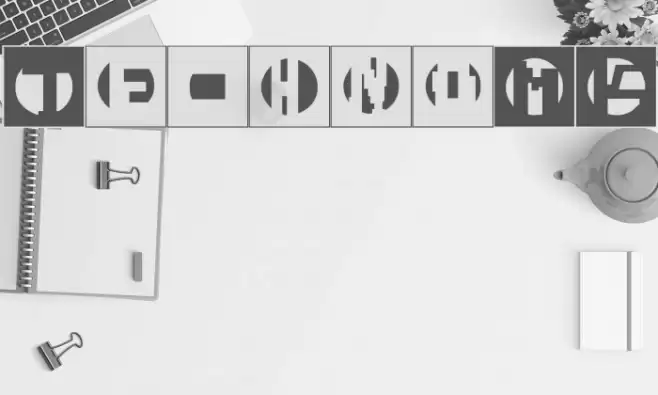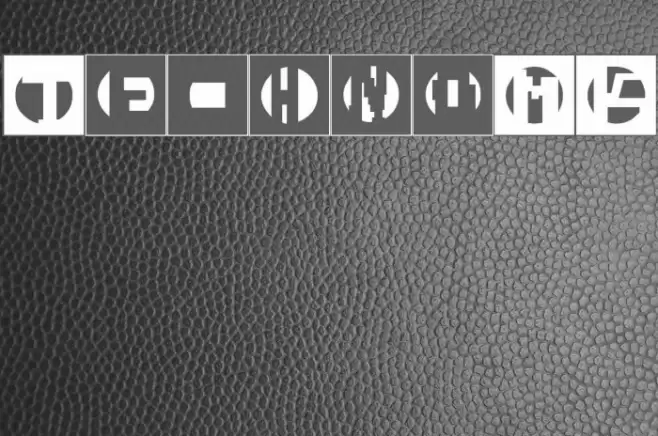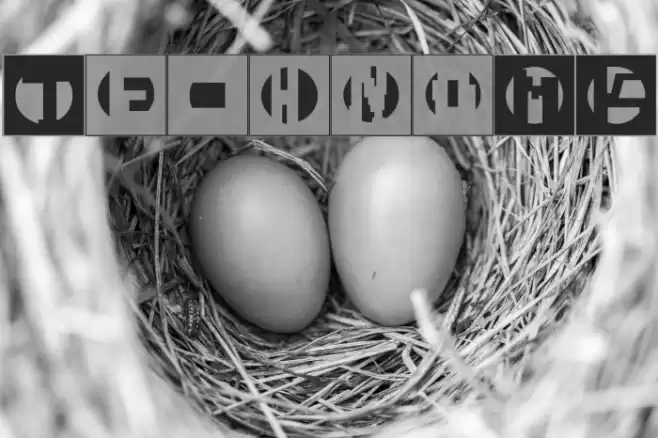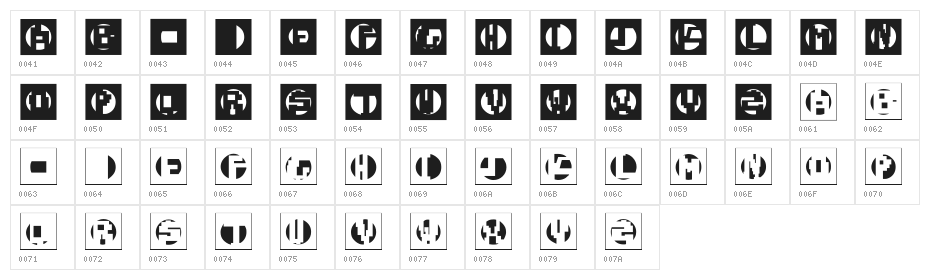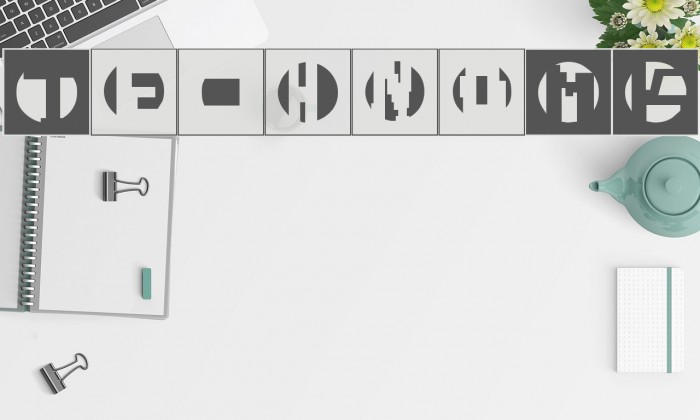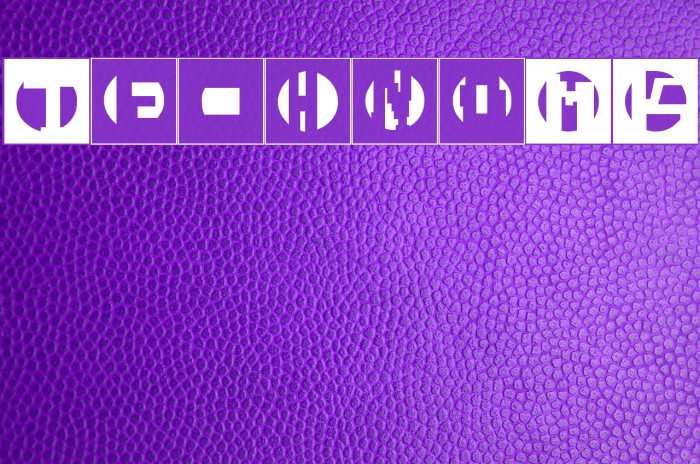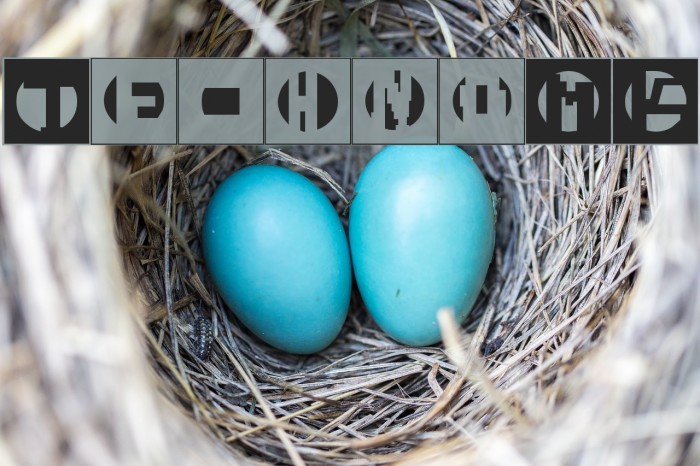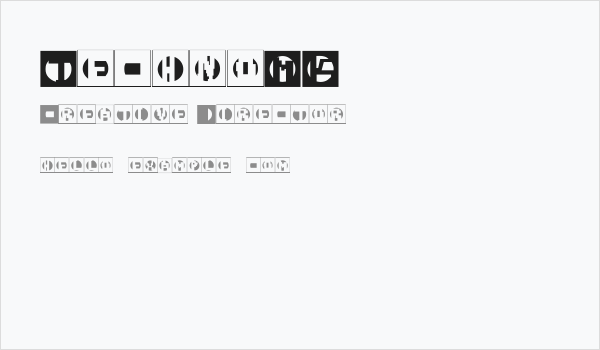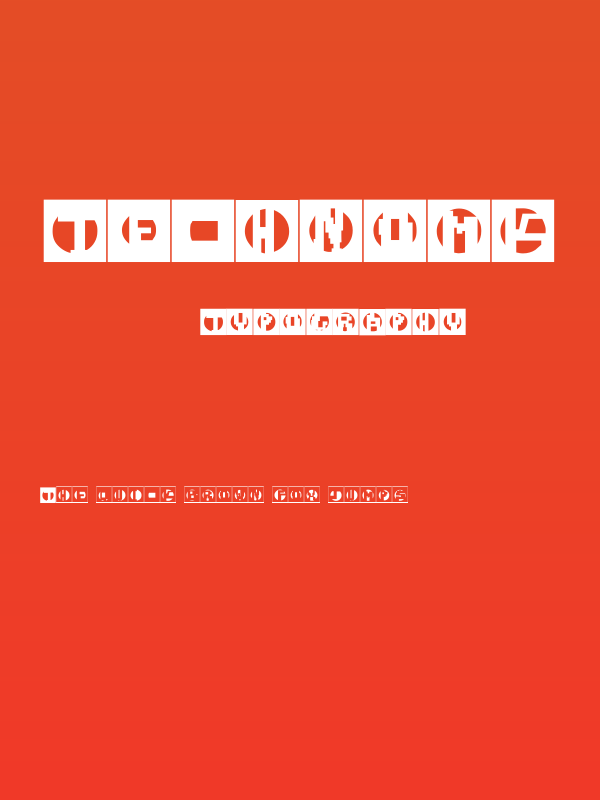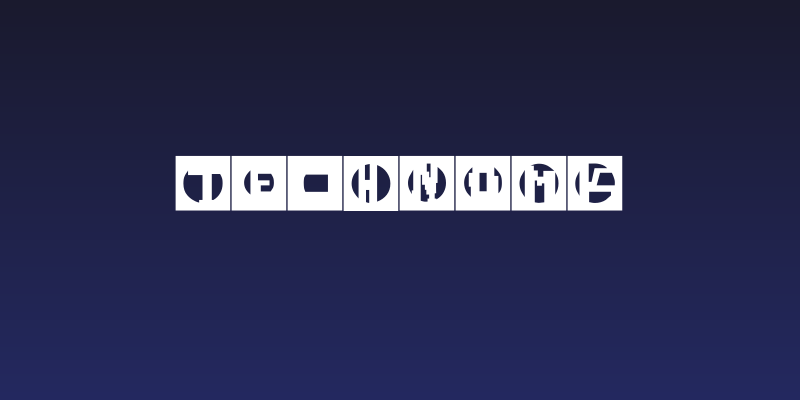
TechnoMK Font
TechnoMK Description
This font features a highly stylized, futuristic design with geometric shapes and bold lines. Each character is enclosed within a square, creating a uniform and structured appearance. The characters are abstract, with some parts of the letters missing or replaced by solid blocks, giving it a digital or techno vibe. The font is monochromatic, using high contrast between black and white to emphasize its modern and edgy style. It is not suitable for body text due to its decorative nature but can be highly effective in digital art, technology-themed projects, or as a display font for headlines.
A futuristic, geometric font with high contrast and abstract character designs from Uncategorized fonts.
- Proposed Projects: Ideal for technology-themed projects, digital art, video game graphics, or as a display font for sci-fi movie posters.